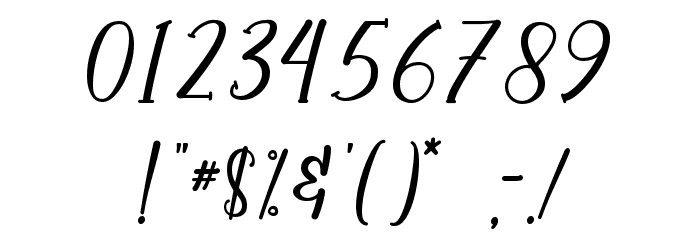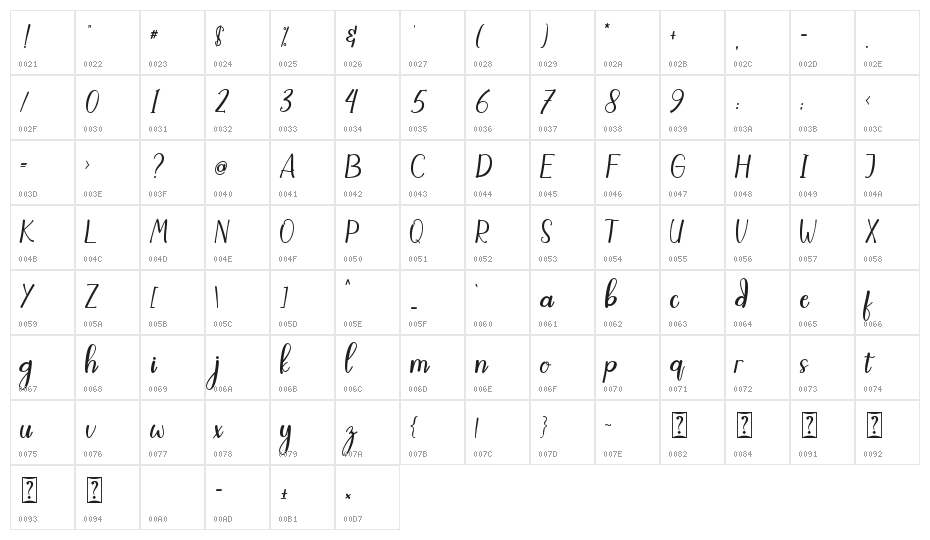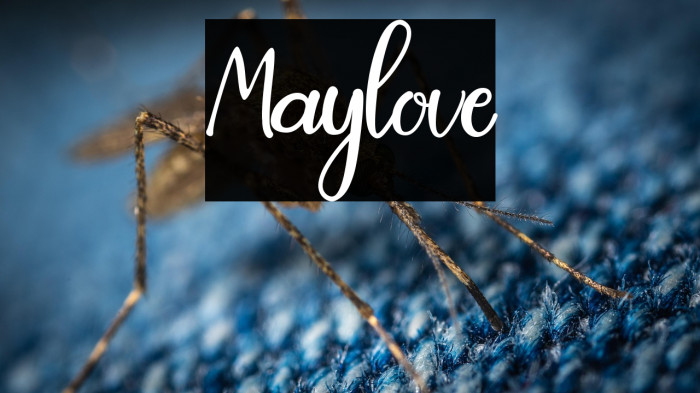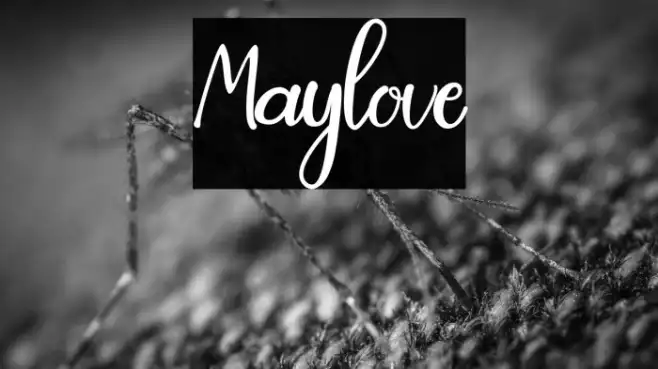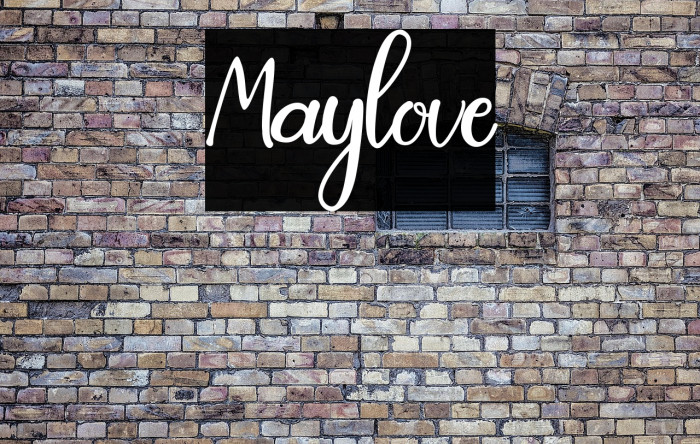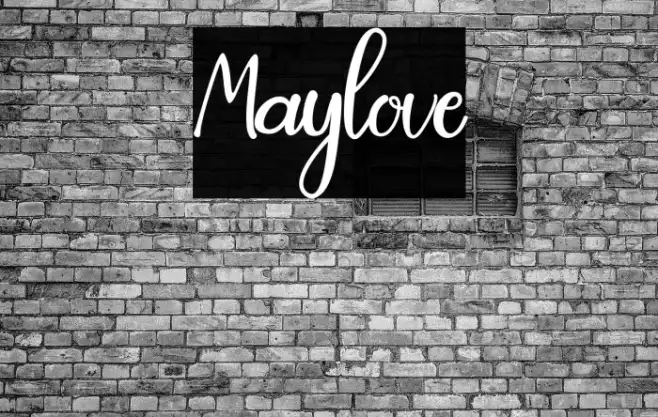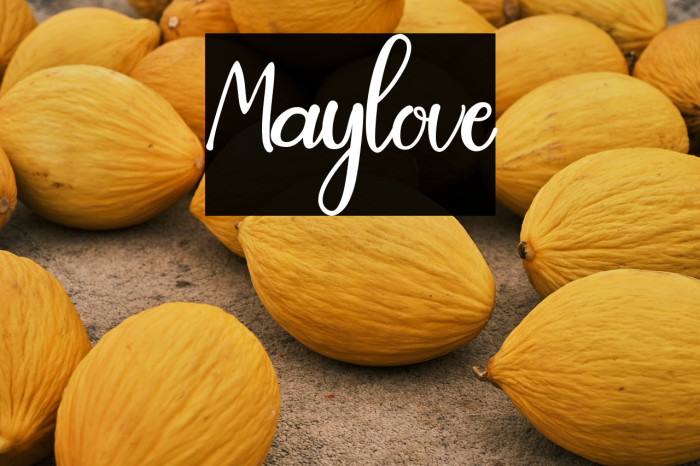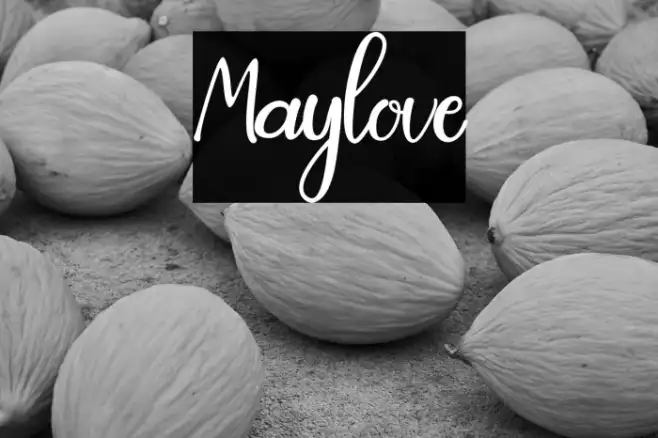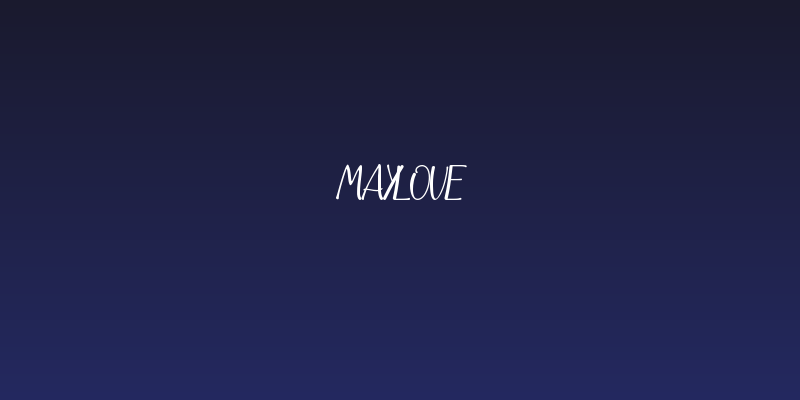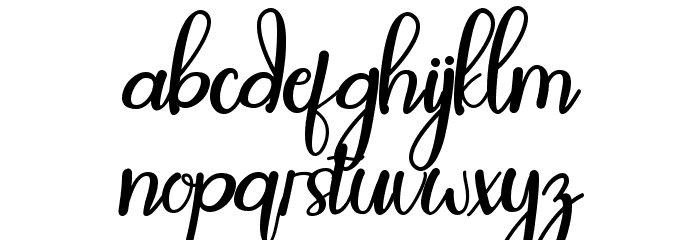
Maylove Font
Maylove Description
This font exhibits a playful and elegant script style, characterized by its flowing, cursive letterforms. The uppercase letters are tall and slender, with a slight slant, giving them a graceful appearance. The lowercase letters are more intricate, featuring loops and swirls that add a touch of sophistication. The numbers maintain a consistent style with the letters, ensuring a cohesive look. Special characters are designed with the same attention to detail, making them blend seamlessly with the rest of the font. Overall, this font combines a sense of whimsy with elegance, making it suitable for a variety of creative projects.
Use CaseLogos, Invitations, Decorative text
Proposed ProjectsIdeal for wedding invitations, greeting cards, branding, and logo design.